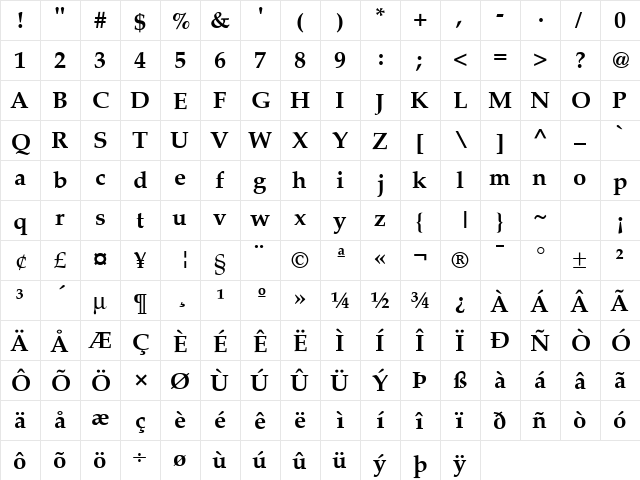
LatinoPalSH Bold
Design Context for LatinoPalSH Typeface
LatinoPalSH is a composed and adaptable typeface that performs quietly and consistently across a wide range of design contexts. Its bold stroke weight gives it real presence on the page.